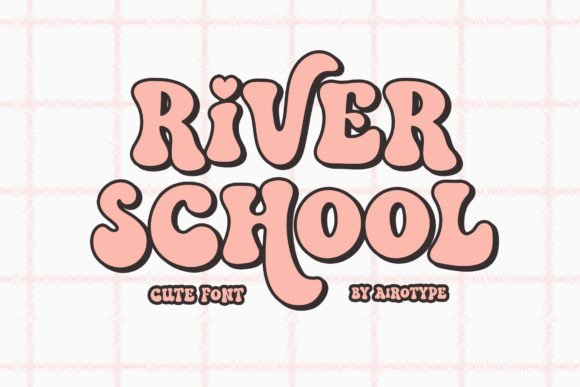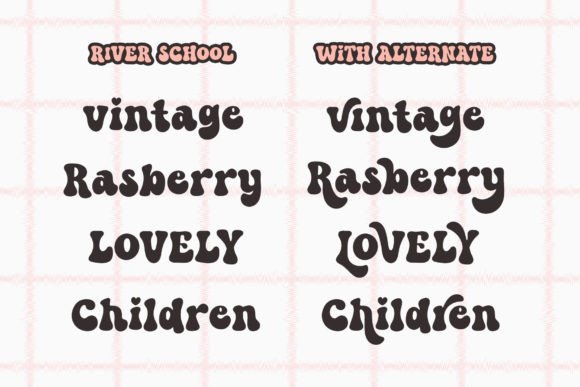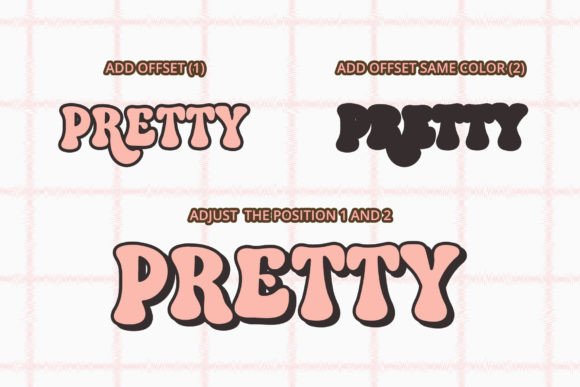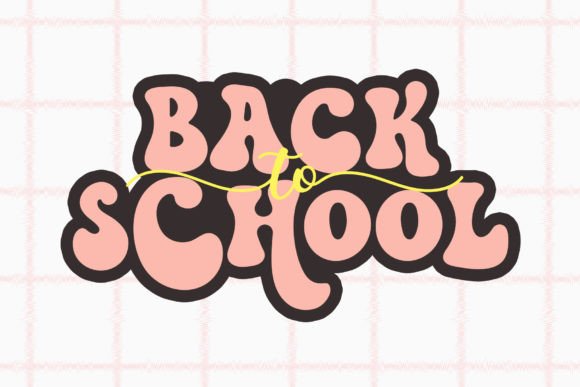
River School Font: A Playful Retro Font for Cute Designs!
About the River School Font
Let us introduce you to River School Font, where timeless design meets modern craftsmanship. River School is a charming, bold, and bubbly retro font with a playful, vintage feel. It includes extra glyphs and alternates for both uppercase and lowercase letters, providing more design options. Perfect for festive designs with a cute and retro touch, River School is ideal for back-to-school projects, kids’ designs, birthday invitations, summer themes, vintage looks, t-shirts, crafts, stickers, sublimation, and more.
Its playful, retro style makes it highly effective for headlines, short text blocks on posters, branding for children’s products, and packaging designs requiring a vintage aesthetic. However, its bold weight and unique character set limit its usability for body text or long-form content, and it would be unsuitable for UI applications demanding high readability.
Consider pairing River School with a clean sans-serif like Open Sans for a balanced contrast, or a more refined serif such as Lora for a sophisticated vintage feel. A simple geometric sans-serif could also provide a modern counterpoint, creating visual interest without overwhelming the playful energy of River School.
The font’s overall personality is best described as cheerful and nostalgic, conveying a sense of fun and approachability, ideal for brands targeting a youthful or family-oriented audience.
River School Font Usage Examples
River School Font Example